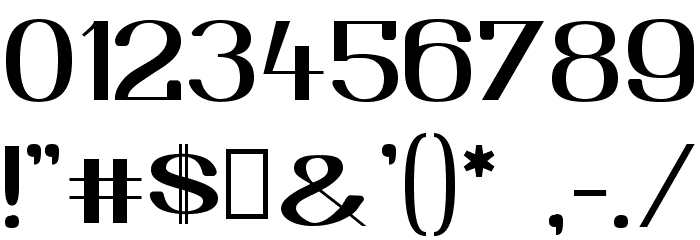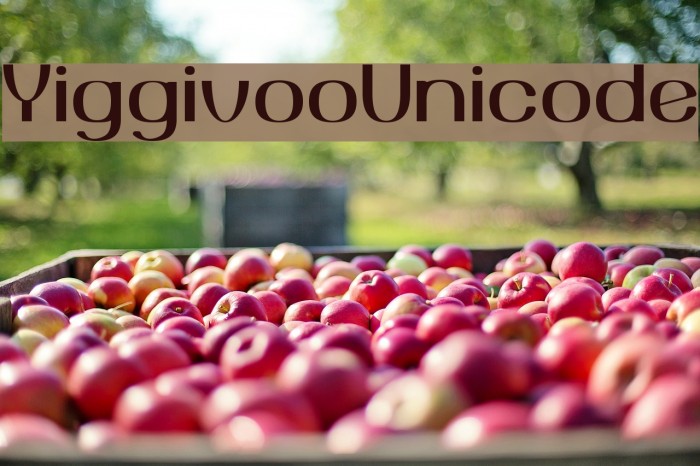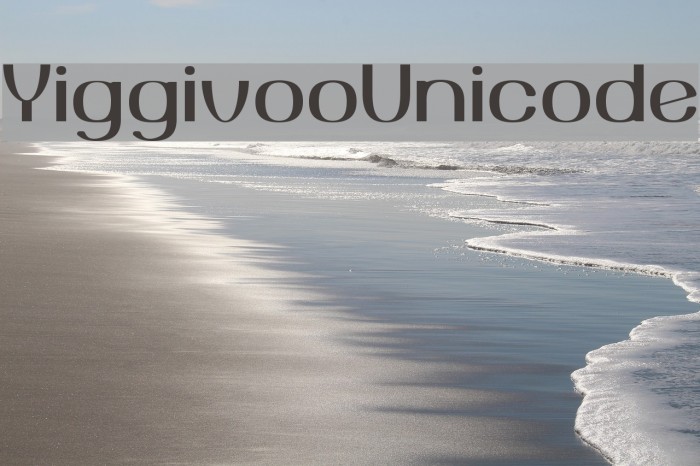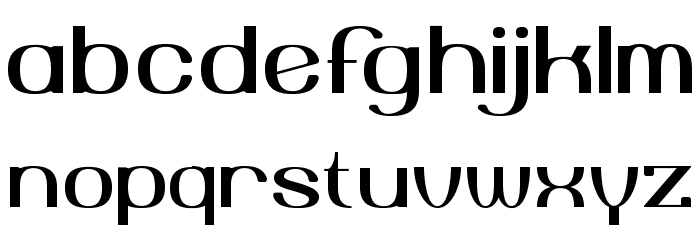
YiggivooUnicode Font
YiggivooUnicode Description
This font features a modern and artistic design with a unique blend of geometric and organic shapes. The uppercase letters exhibit a bold and striking appearance with sharp angles and clean lines, while the lowercase letters maintain a more fluid and rounded form. The numerals are consistent with the overall style, offering a balanced and cohesive look. Special characters are creatively integrated, enhancing the font's versatility. This font stands out with its high contrast in stroke thickness, creating a dynamic and eye-catching effect. The character spacing is normal, allowing for readability while maintaining its distinctive style.
A modern, high-contrast font with geometric and organic elements from Thick fonts.
- Proposed Projects: Ideal for branding, advertising, and editorial design projects that require a bold and modern aesthetic.